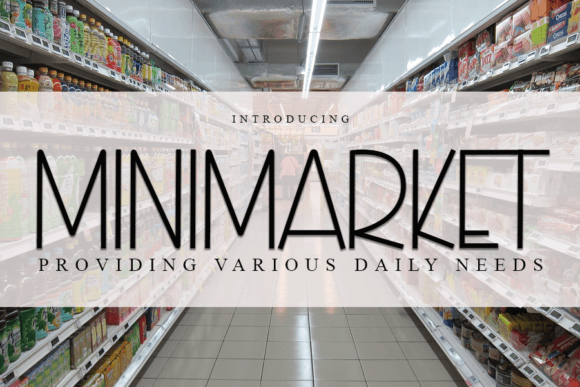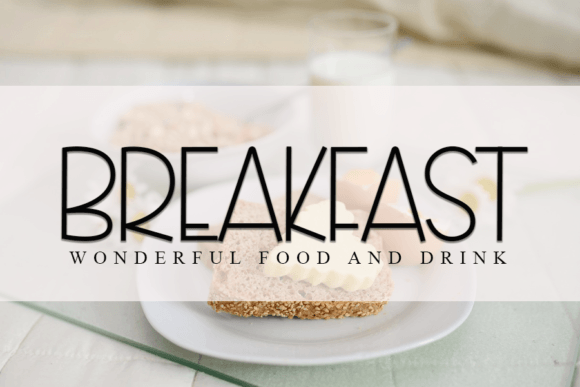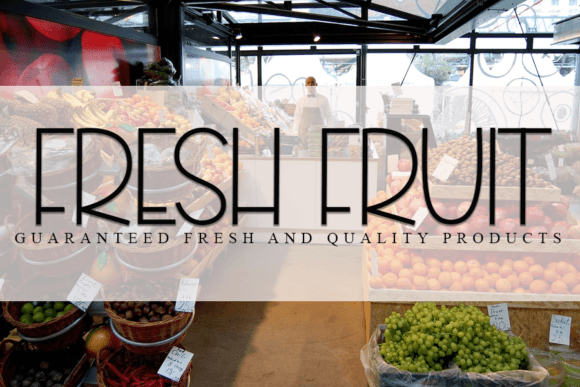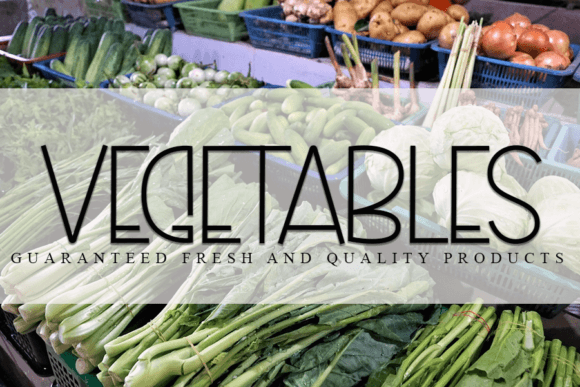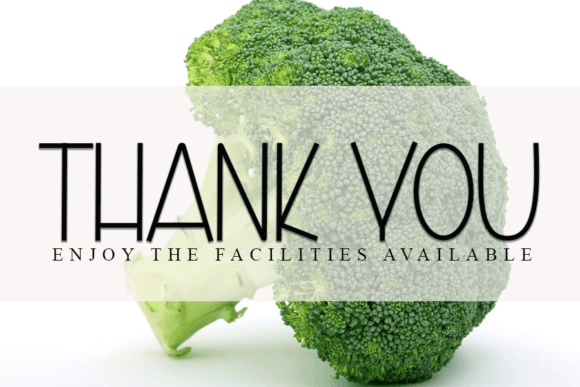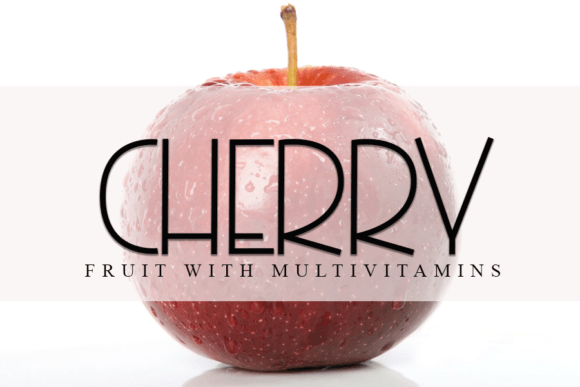
Minimarket Font
The Minimarket Font Download is a cool and modern handwritten display font created to add personality and charm to your projects. With its clean lines and playful handwritten rhythm, it is suitable for both personal and professional use. Whether you design invitations, posters, or branding materials, Minimarket delivers a stylish touch that elevates your work.
A Modern Display Script with Style
The Minimarket script font combines handwritten strokes with bold display energy. As a result, it feels fresh, approachable, and professional. Furthermore, it adapts seamlessly to small crafts as well as large visual projects, which makes it a flexible tool for designers.
Handwritten fonts bring warmth and charm to stationery. The Minimarket Font is perfect for wedding invitations, birthday notes, thank you cards, and seasonal greetings. Because of its clean and modern handwritten flow, each design feels heartfelt and memorable. In addition, it helps ensure cards stand out with creativity.
Branding and Logo Design with Minimarket Font
Typography defines the personality of a brand. The Minimarket handwritten font is ideal for logos, product packaging, and promotional designs. Its modern handwritten style makes businesses look professional while staying friendly. Therefore, it is especially effective for lifestyle, fashion, and creative industries.
Posters, Titles, and Creative Displays
The Minimarket Font Download is also excellent for posters, banners, magazines, and book covers. It remains legible in every size while adding handwritten elegance. Consequently, it is a reliable option for designers who value clarity and creativity.
In today’s digital-first world, fonts must catch attention quickly. The Minimarket typeface integrates smoothly into Instagram posts, YouTube thumbnails, Pinterest boards, and blogs. Because of its bold handwritten rhythm, it makes digital content feel modern and eye-catching.
Why Designers Choose Minimarket Typeface
Designers need fonts that balance creativity with readability. The Minimarket handwritten script keeps its modern personality while remaining clear. This makes it suitable for both hobbyists and professionals. Moreover, its timeless handwritten style ensures it stays trendy for future projects.
Add Modern Charm to Your Projects Today
If you want a handwritten display font that feels modern, versatile, and stylish, the Minimarket Font Download is the perfect choice. From invitations and cards to posters, branding, and social media, it enriches every project with charm and energy. Finally, download Minimarket today and let your work shine with creative handwritten beauty.